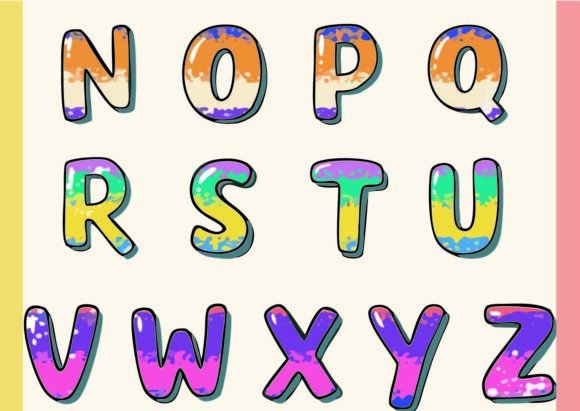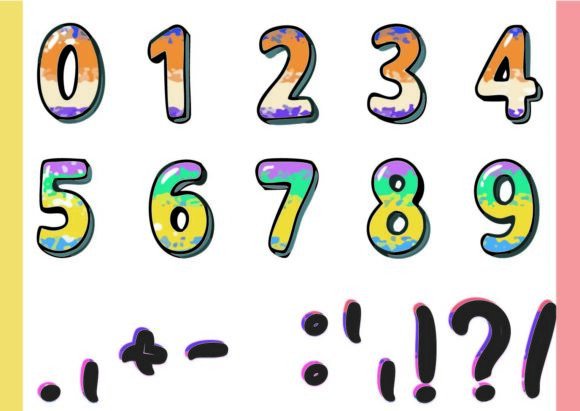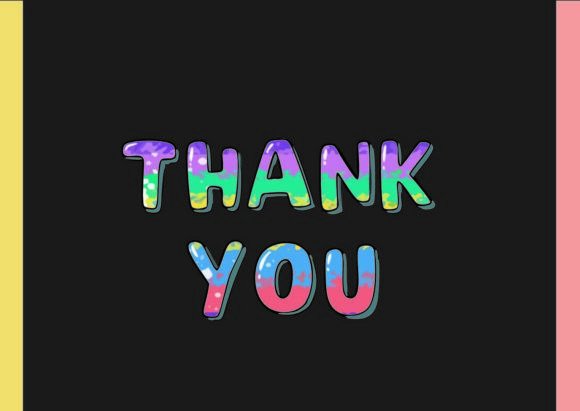
Introducing Charlee Font: A Colorful Heaven for Designers and Crafters
Are you tired of using the same old fonts in your designs? Look no further than Charlee Font, a vibrant and unique color font that is sure to take your typography to the next level. This stunning font features a complex set of paths and connections in every single glyph, making each one a miniature masterpiece. In this article, we’ll dive into the world of Charlee Font and explore its features, benefits, and uses.
A Colorful Heaven
Charlee Font is a game-changer for designers and crafters who want to add a pop of color to their work. Unlike traditional fonts, which feature a single color, Charlee Font boasts a different set of colors for every single glyph. This means that each letter, number, and symbol is a vibrant and eye-catching work of art in its own right. Whether you’re creating a logo, a poster, or a digital graphic, Charlee Font is sure to make your design stand out.
Complex Sets of Paths and Connections
One of the most striking features of Charlee Font is the intricate set of paths and connections that make up each glyph. These complex designs are reminiscent of typographic paintings, with swirling lines and shapes that add depth and visual interest to each letter. Whether you’re a fan of abstract art or simply appreciate the beauty of well-crafted typography, Charlee Font is sure to impress.
So why should designers and crafters choose Charlee Font for their projects? Here are just a few benefits of using this amazing font:
- Add a pop of color: Charlee Font is the perfect way to add a burst of color to your designs and make them stand out.
- Unique and eye-catching: With its complex sets of paths and connections, Charlee Font is sure to grab attention and leave a lasting impression.
- Versatile: Charlee Font is compatible with a range of design software and can be used for a wide range of projects, from logos and posters to digital graphics and crafts.
- Easily customizable: With its Opentype-SVG format, Charlee Font can be easily edited and customized to suit your design needs.
Uses for Charlee Font
So what can you use Charlee Font for? The possibilities are endless! Here are a few ideas to get you started:
- Logos and branding: Charlee Font is perfect for creating unique and eye-catching logos that will help your brand stand out.
- Posters and flyers: Add a pop of color to your posters and flyers with Charlee Font and make them impossible to ignore.
- Digital graphics: Charlee Font is perfect for creating stunning digital graphics, from social media posts to website headers.
- Crafts and DIY projects: Charlee Font can be used for a range of craft and DIY projects, from card making to scrapbooking.
Charlee Font is a game-changing color font that is sure to take your typography to the next level. With its complex sets of paths and connections, vibrant colors, and compatibility with a range of design software, Charlee Font is the perfect choice for designers and crafters who want to add a pop of color to their work. Whether you’re creating a logo, a poster, or a digital graphic, Charlee Font is sure to make your design stand out. So why wait? Download Charlee Font today and discover a colorful heaven of creative possibilities!